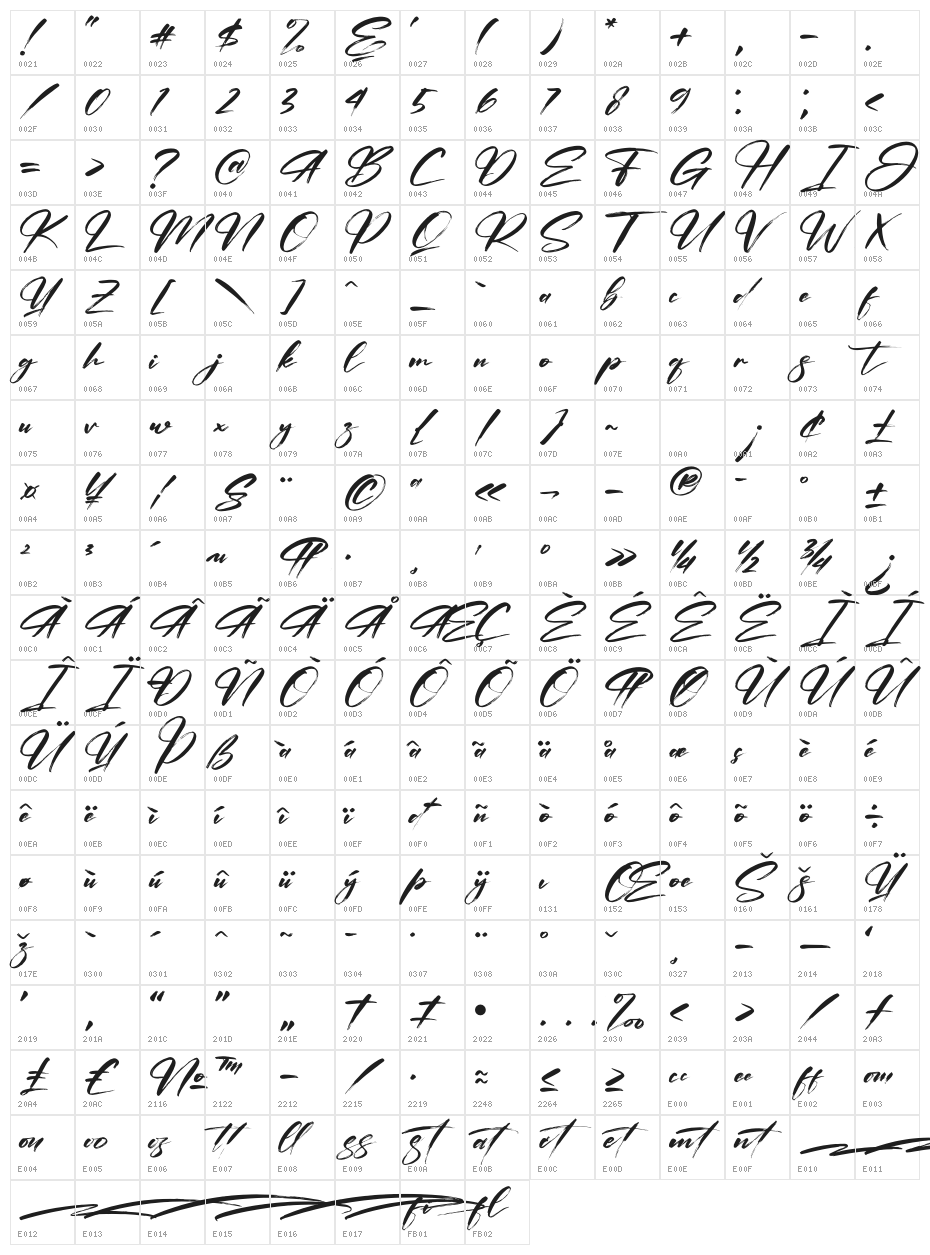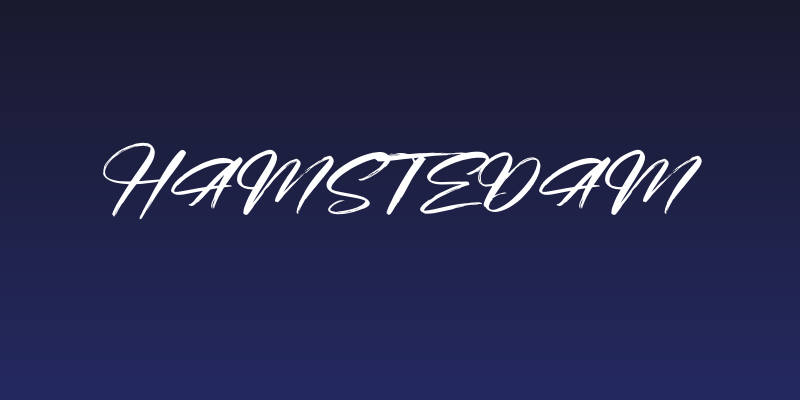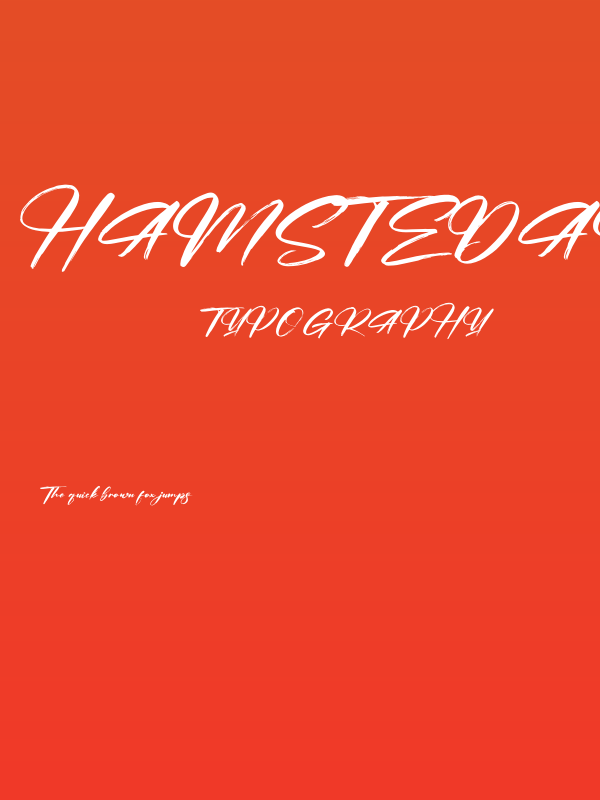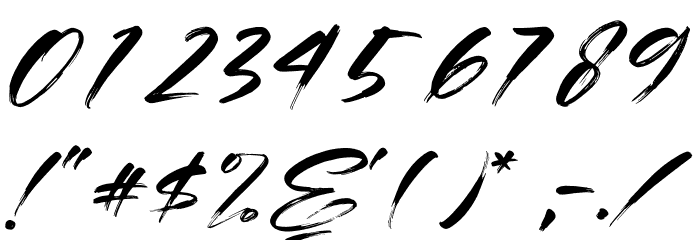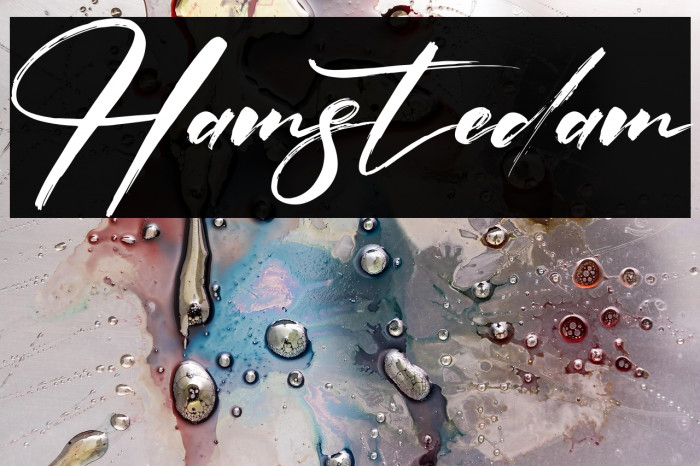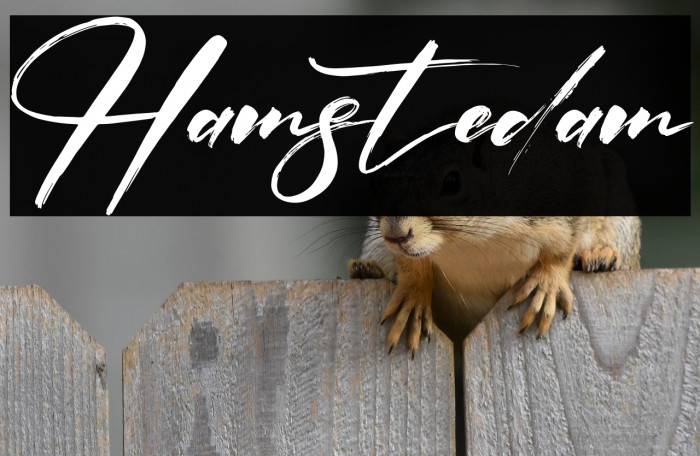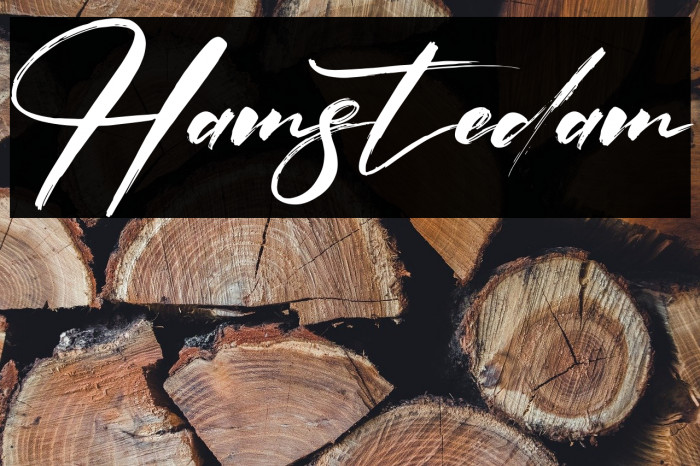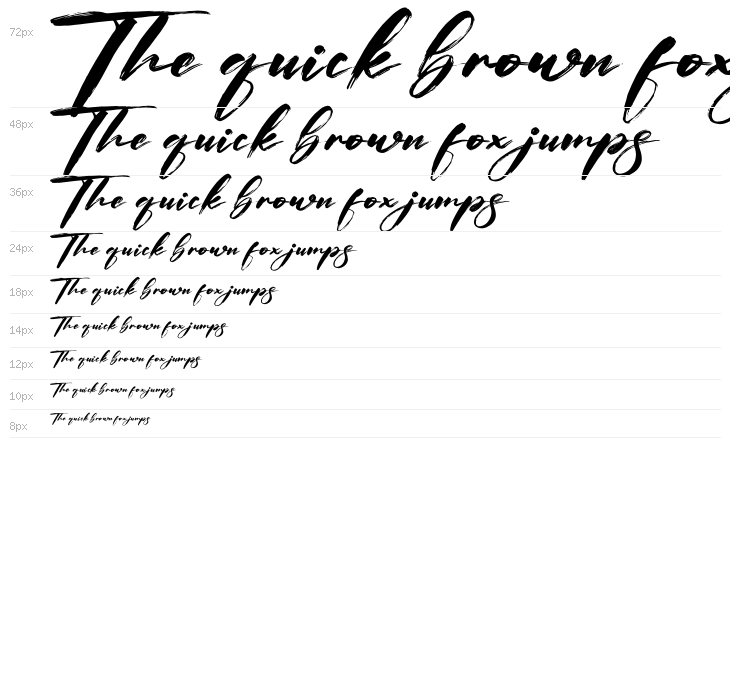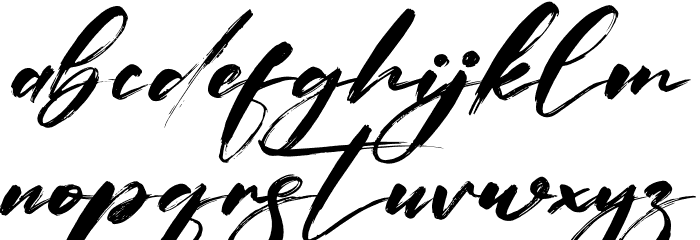
Hamstedam Font
Hamstedam Description
This font exhibits a dynamic and expressive style, characterized by its fluid, cursive script. The letters are connected with sweeping strokes that convey a sense of elegance and motion. The uppercase letters are bold and prominent, while the lowercase letters maintain a consistent flow, enhancing readability. The numbers and special characters are crafted with the same artistic flair, ensuring a cohesive look across all elements. The brush-like texture adds a handcrafted feel, making it suitable for projects that require a personal touch. The overall design is both modern and artistic, perfect for creative applications.
| Overall Style | Modern, Artistic |
| Proposed Projects | Ideal for wedding invitations, branding, logos, and artistic projects that require a personal and elegant touch. |